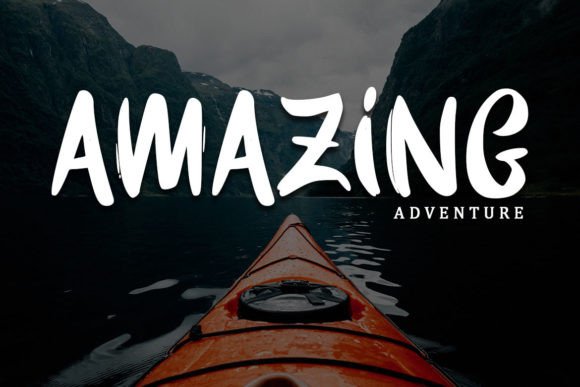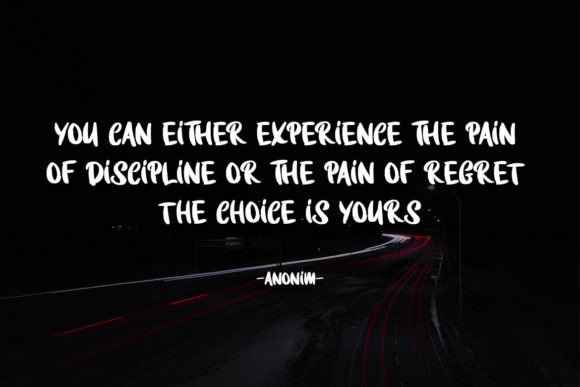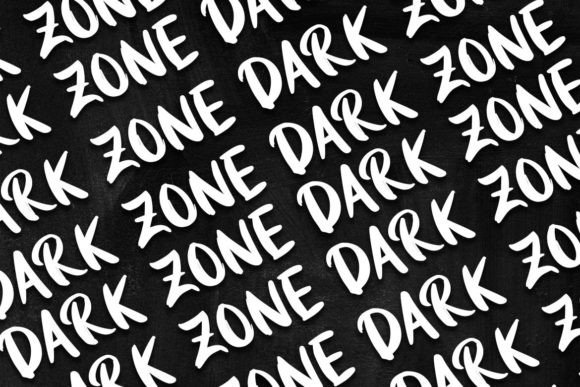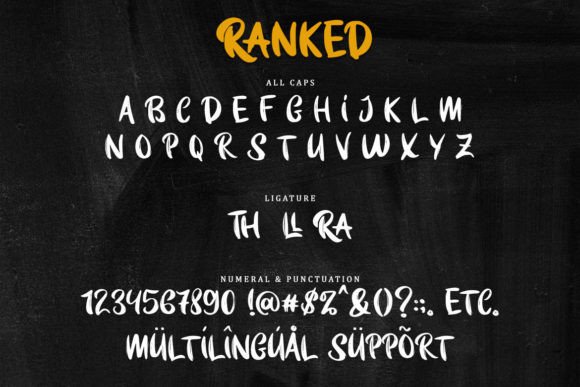
Introduction to Ranked Font
Remember the rush of excitement you felt when you finally landed that perfect font for your creative project? The one that made all the difference in bringing your vision to life? For designers, finding that elusive font can be a game-changer. It’s a moment that sparks joy and sets the tone for a successful project.
That’s exactly what we’re about to explore – a font that’s been making waves in the design community. Say hello to the Ranked Font, a unique and elegant handwritten font that’s perfect for a wide range of applications, from logos and branding to posters and books.
With its natural and strong personality, the Ranked Font is a valuable addition to any designer’s toolkit. And the best part? It’s PUA encoded, making it easy to access all the glyphs you need. Whether you’re working on a free download or a high-quality design project, this font is sure to elevate your work and leave a lasting impression.
Ranked Font: Key Features
- High-quality font design, perfect for creative projects that require a unique touch.
- High-resolution design, ensuring that the font looks great on any screen or print material, from business cards to billboards.
- Unique characteristics, such as custom ligatures and alternate characters, add a touch of personality to any design project.
- Perfect for designers who value high-quality design resources and are looking for a font that stands out from the crowd.
Honest Review: Ranked Font
As a designer, I’m always on the lookout for high-quality design resources to elevate my creative projects. Ranked Font is a font family that caught my attention, and I decided to give it a try.
- ✨ High-quality font family with a unique and modern design
- ⚠️ Limited character set and language support, which might be a concern for designers working on multilingual projects
- ⚠️ Not ideal for use in small text sizes, as the font can become difficult to read
Overall, I’m impressed with Ranked Font’s unique design and high-quality execution. While it may have some limitations, it’s a great resource for designers looking to add a modern touch to their creative projects. With its free download option and transparent background support, it’s definitely worth considering for your next design endeavor.
Ranked Font is ideal for various design projects, including:
- Infographics and data visualization
- Marketing materials and social media graphics